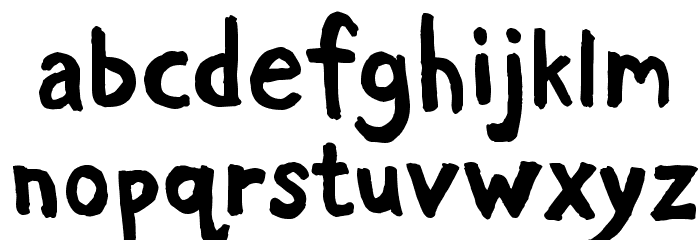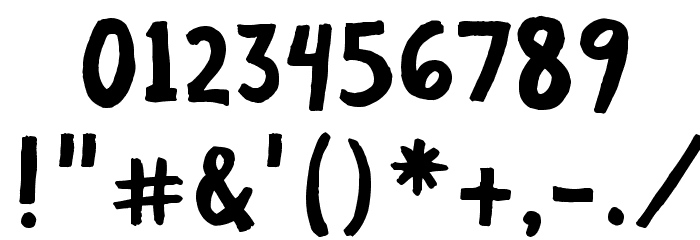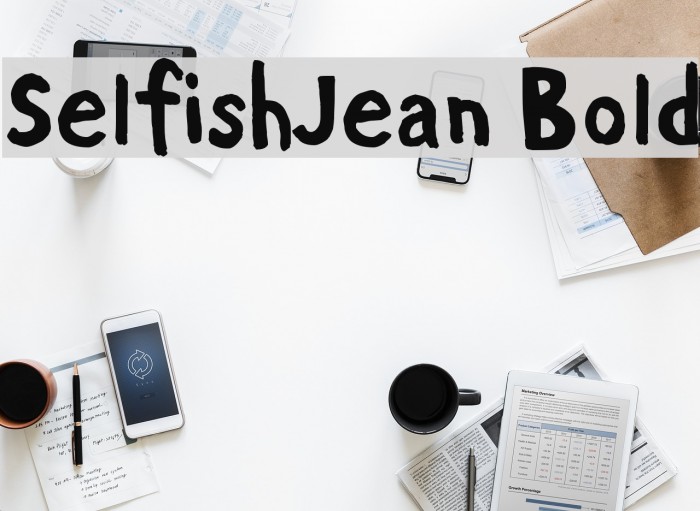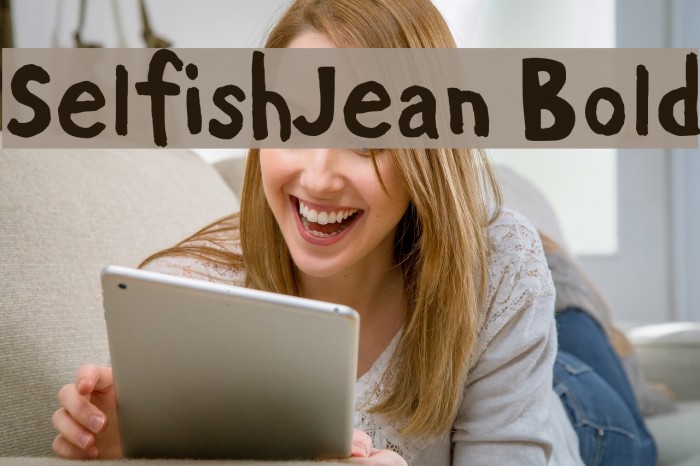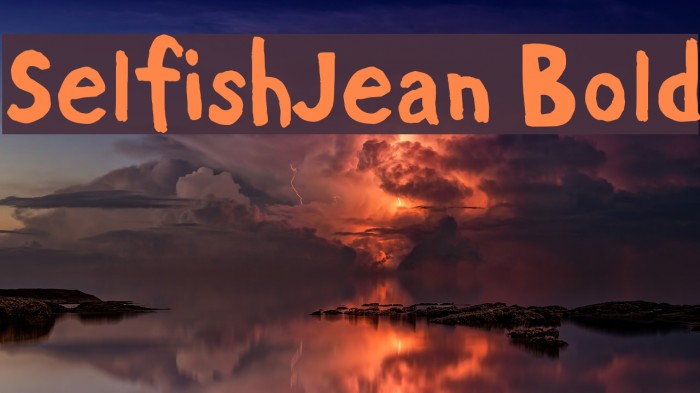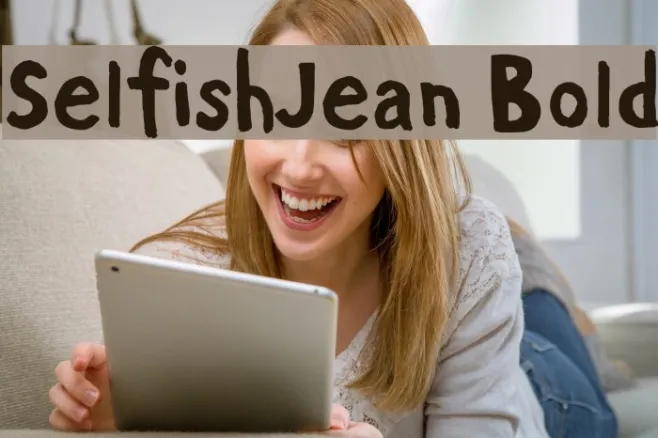
SelfishJean Bold Font
This font exhibits a playful and informal style, characterized by its hand-drawn appearance. The letters have an uneven baseline and varying stroke widths, giving it a casual and dynamic feel. The uppercase and lowercase letters maintain a consistent style, with rounded edges and a slightly irregular form that adds to its charm. The numerals and special characters follow the same aesthetic, ensuring a cohesive look across all elements. This font is ideal for projects that require a personal touch or a sense of whimsy.
A playful, hand-drawn font with an informal and dynamic style.
- Proposed Projects: Ideal for children's books, greeting cards, casual branding, and creative posters.
- Overall Style: Casual